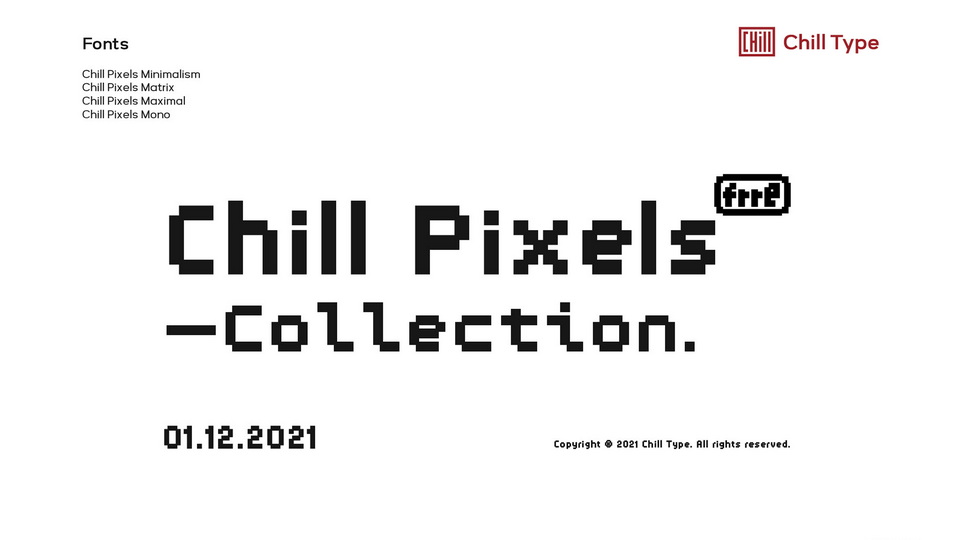
Chill Pixels Fonts
Chill Pixels is a collection of pixel fonts that includes 4 styles: Minimalism, Matrix, Maximal and Mono. The fonts are great in digital- and retro-themed projects, work well for both body and headline use.
Designed by: 萧 熠